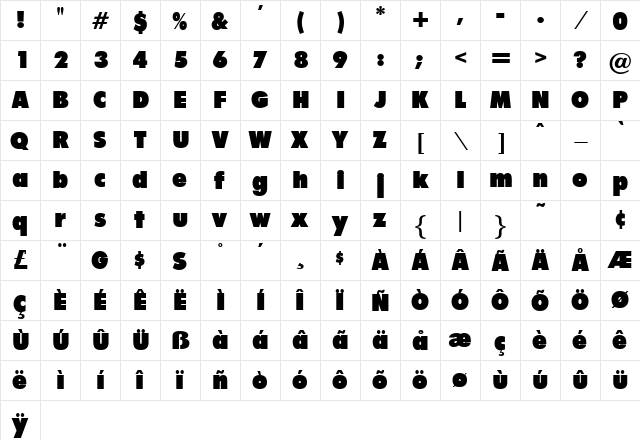
Fusee Bold
Design Context for Fusee Typeface
Fusee offers clean, dependable letterforms without strong stylistic allegiance, making it a practical choice for designers who need flexibility. The heavy weight commands attention and anchors typographic hierarchies.